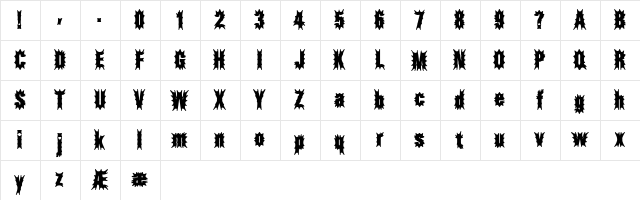
Aftermath (BRK) Regular
| Foundry | ƎIGMA FONTS |
| Designer | Brian Kent |
Design Context for Aftermath (BRK) Typeface
Aftermath (BRK) is a composed and adaptable typeface that performs quietly and consistently across a wide range of design contexts.